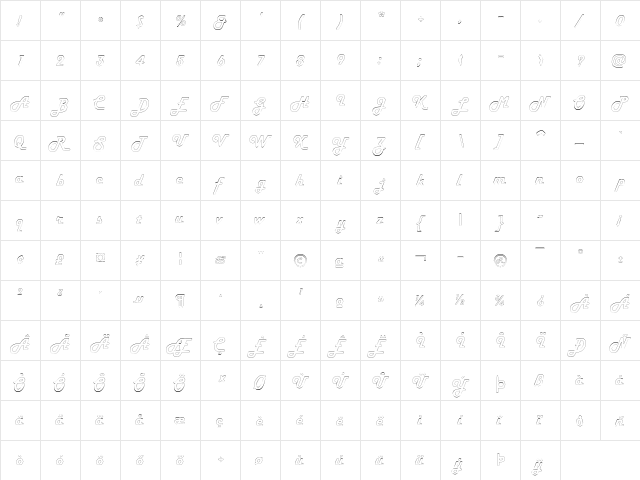
HamburgerOutline Regular
Design Context for HamburgerOutline Typeface
HamburgerOutline is built around its visual character rather than neutral utility — its distinctive forms are designed to make an impression at display sizes.